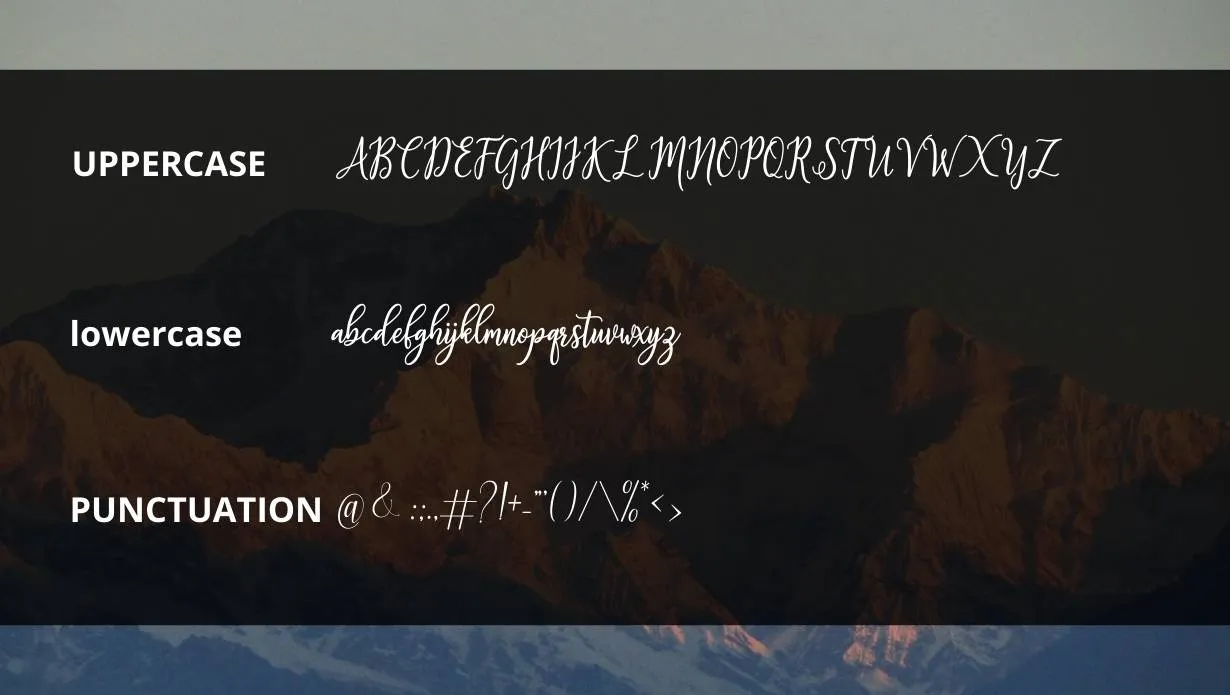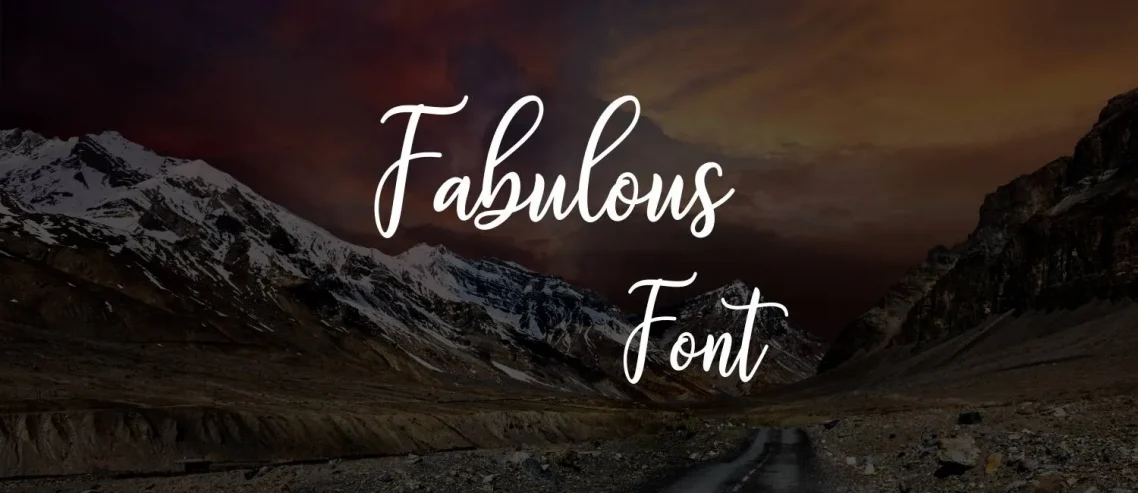
The fabulous font is a typeface that was designed in the early 20th century. It is notable for its unique and eye-catching design, which has made it a popular choice for both personal and commercial use. The fabulous font has a long and storied history, and its popularity endures to this day.
The fabulous font was designed by British typeface designer Sir Herbert John Gleeson in the year 1904. Gleeson was a prolific typeface designer, and his other notable designs include the popular Gill Sans typeface. The fabulous font was originally designed for the London Times newspaper, and it quickly became one of the most popular typefaces in use.
Fabulous Font Info
| Name | Fabulous Font |
| Designer | Herbert John Gleeson |
| Style | Calligraphy |